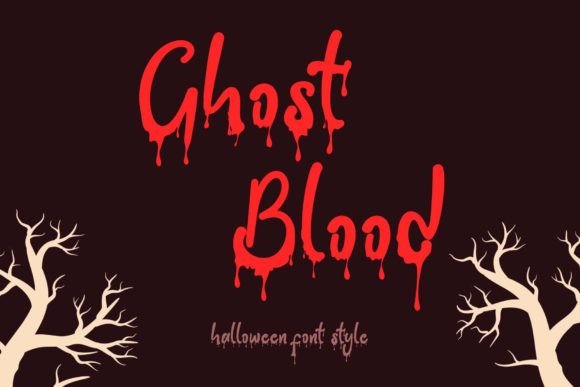
Step into a world of chilling enchantment with "Ghost Blood," the haunting font that will cast a spell on your Halloween designs. This spine-tingling typeface is a masterclass in horror calligraphy, dripping with the essence of a blood-curdling night. Each letter oozes with an eerie elegance, perfectly embodying the essence of the spooky season.
Crafted with meticulous attention to detail, "Ghost Blood" captures the very essence of terror, making it the perfect choice for conjuring up spine-chilling Halloween invitations, bone-rattling party flyers, and hair-raising horror film titles. Its twisted and distorted forms dance before your eyes like ghostly apparitions, sending shivers down your spine with every stroke.
As versatile as it is terrifying, "Ghost Blood" extends its chilling embrace beyond Halloween. Unleash its dark charm for metal concert posters, spine-chilling book covers, and any project that demands an unsettling ambiance. Its unique and captivating style is sure to leave a lasting impression, haunting your audience long after they've closed the page or left the concert hall.
Immerse yourself in the world of "Ghost Blood" and let its sinister beauty seep into your creative projects. This font is not just a typeface; it's a portal to a realm of frightful fascination that will leave your audience breathless. Dare to embrace the darkness and let "Ghost Blood" cast its spell on your designs.